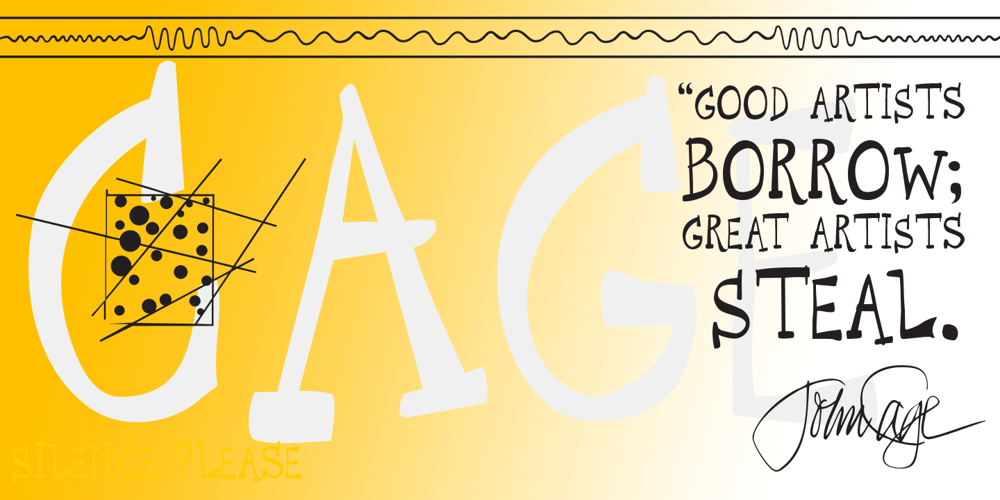
P22 Cage Font Family was designed by Richard Kegler and published by P22 Type Foundry. P22 Cage contains 2 styles and family package options. Based on the handwriting and sketches of American experimental composer John Cage, this set was produced in conjunction with The Museum of Contemporary Art in Los Angeles and the John Cage Trust. This unique collection includes 52 graphic extras culled from the composer’s notes and scores, as well as the “Cage Silence” font inspired by Cage’s seminal work 4′ 33″.